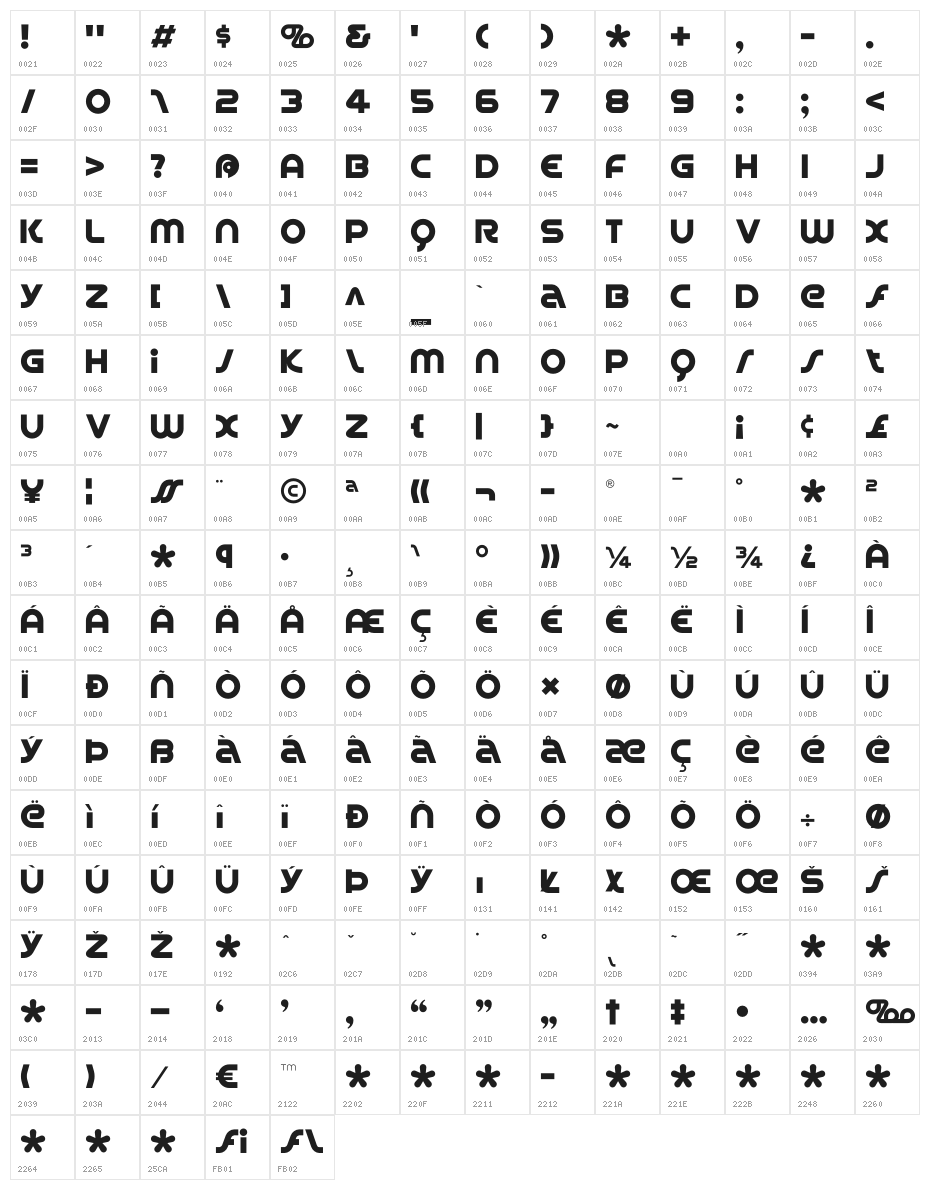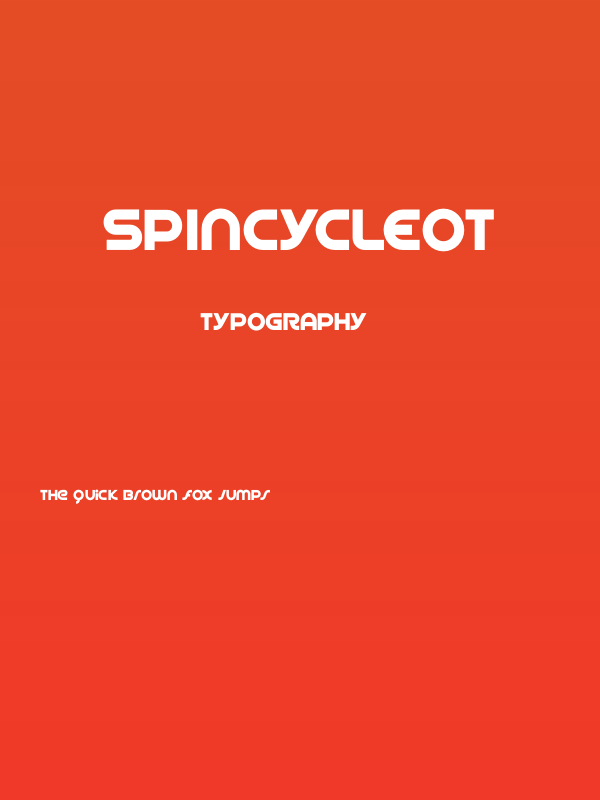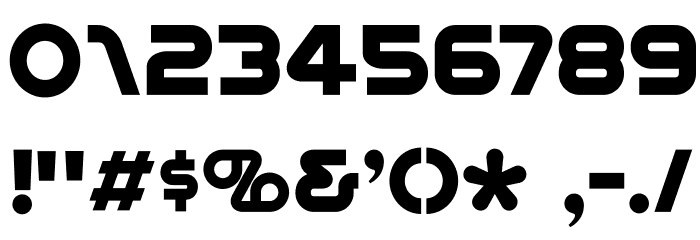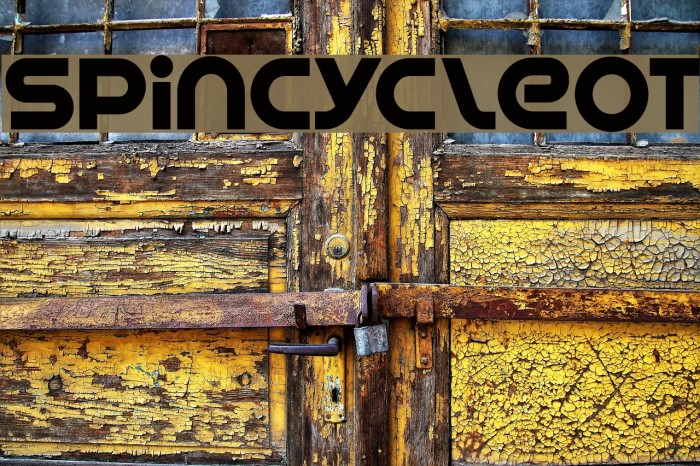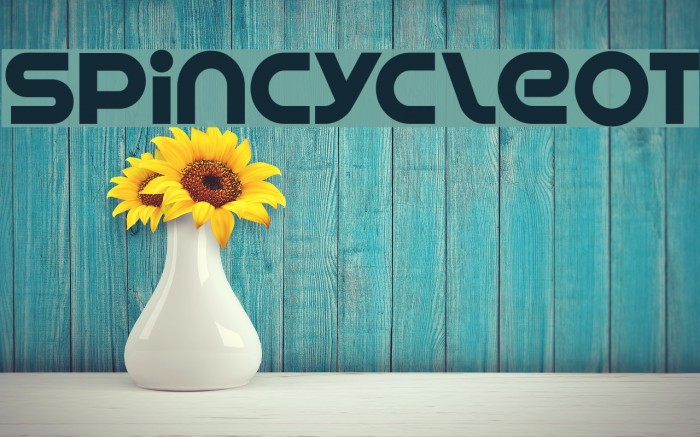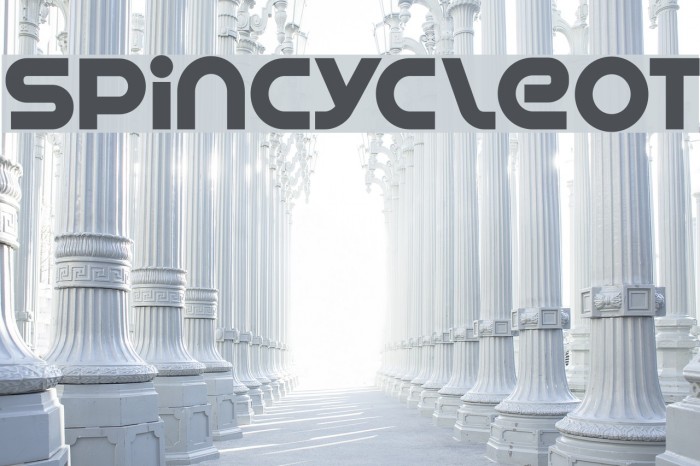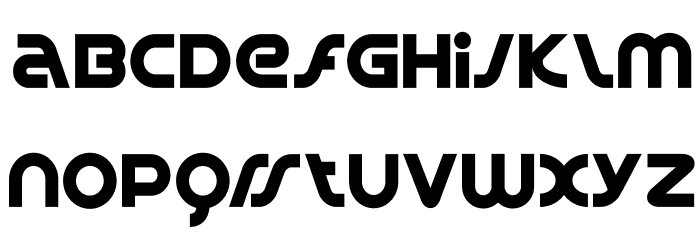
SpinCycleOT Font
SpinCycleOT Description
This font features a bold, geometric design with a modern and futuristic appeal. The characters are constructed with thick, uniform strokes, giving them a strong presence. The rounded edges and consistent stroke width contribute to a cohesive and streamlined look. The uppercase letters exhibit a unique blend of curves and straight lines, while the lowercase letters maintain a similar aesthetic with a slightly more playful touch. The numerals are bold and easily readable, matching the overall style of the alphabet. Special characters are designed with the same attention to detail, ensuring a harmonious appearance across all glyphs.